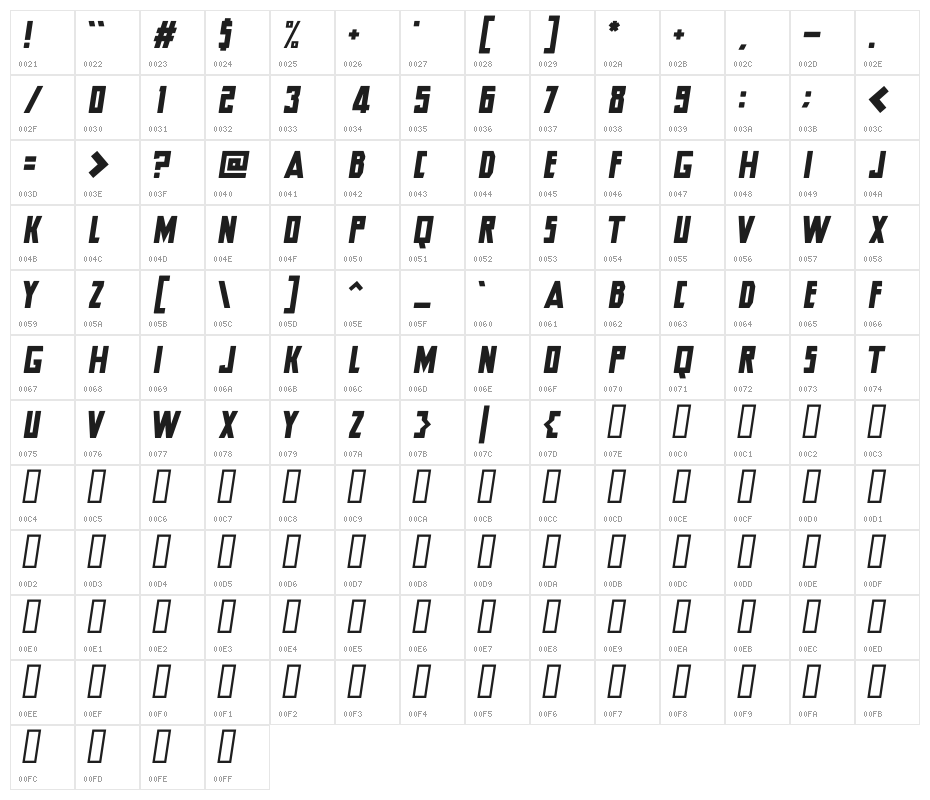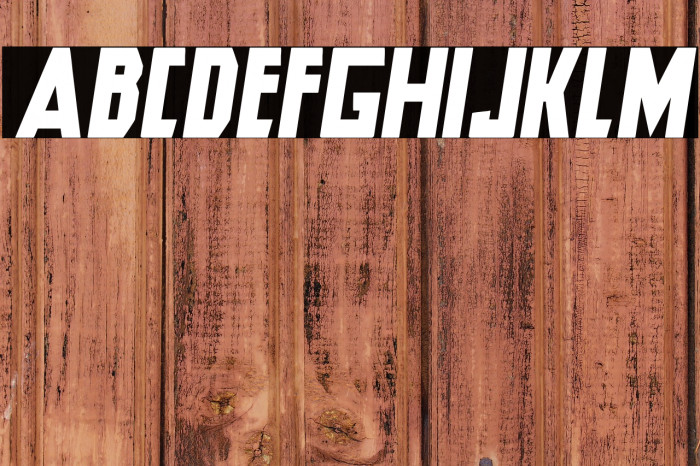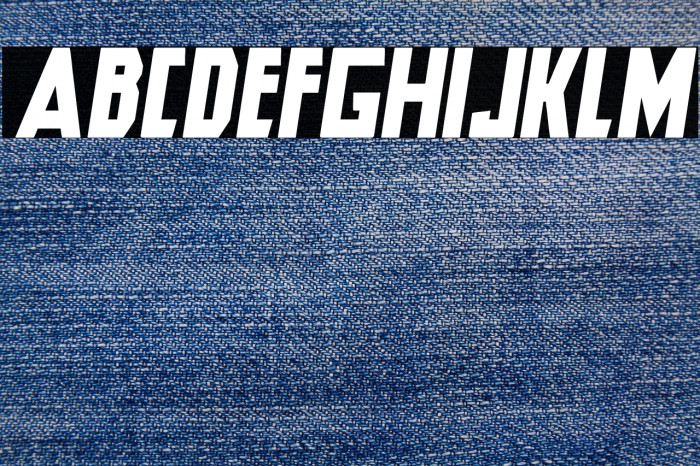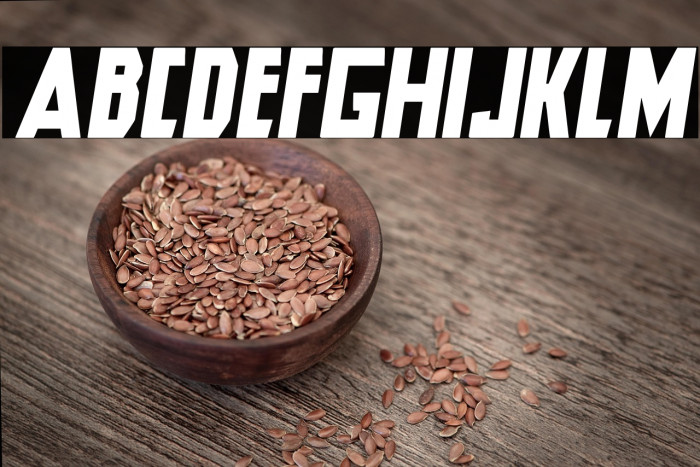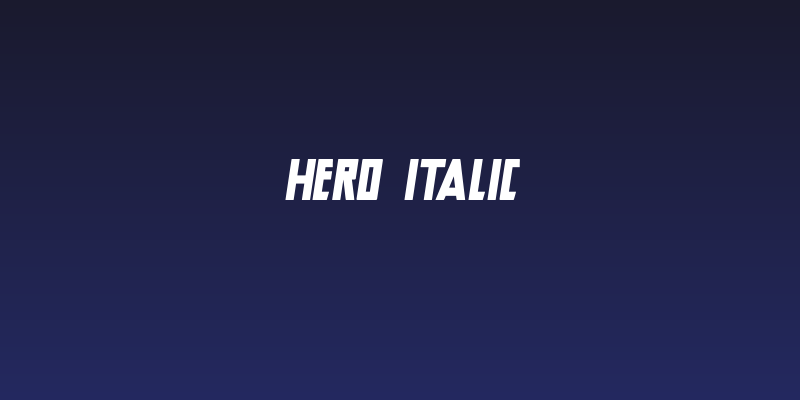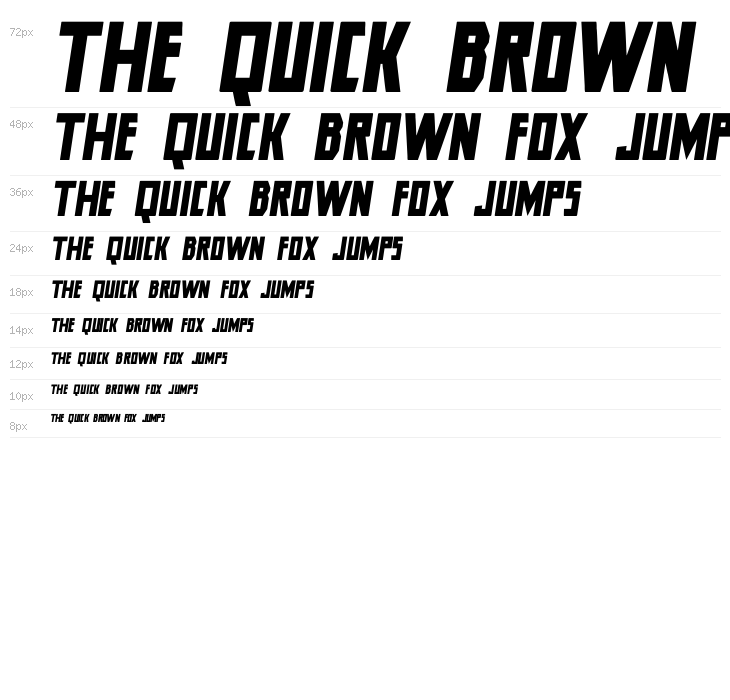
Hero Italic Font
Hero Italic Description
This font features a bold and dynamic style with a strong italic slant, giving it a sense of motion and energy. The characters are blocky and geometric, with sharp angles and clean lines, making it highly legible even at smaller sizes. The uppercase letters are particularly striking, with a uniform height that creates a cohesive look. The numbers and special characters maintain the same boldness and angular design, ensuring consistency across all elements. This font is ideal for projects that require a modern and impactful appearance.